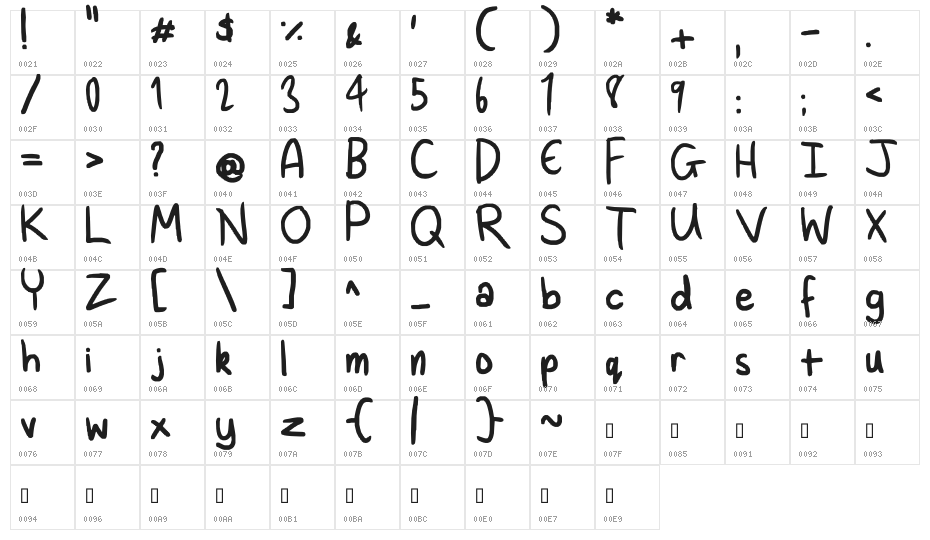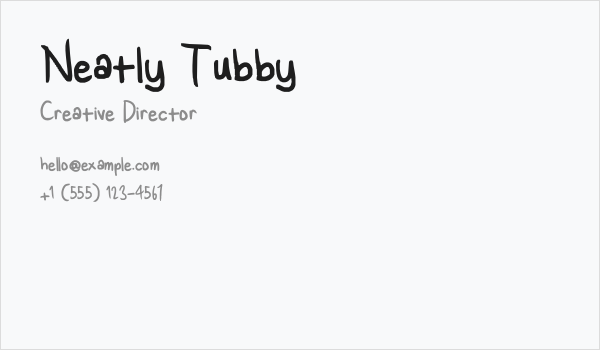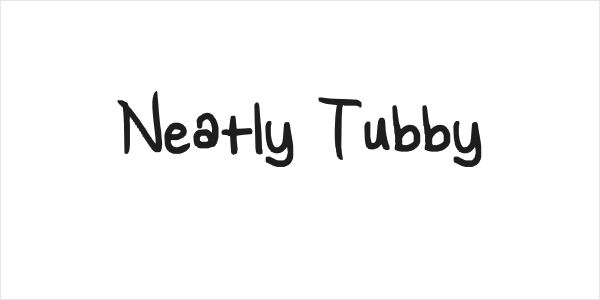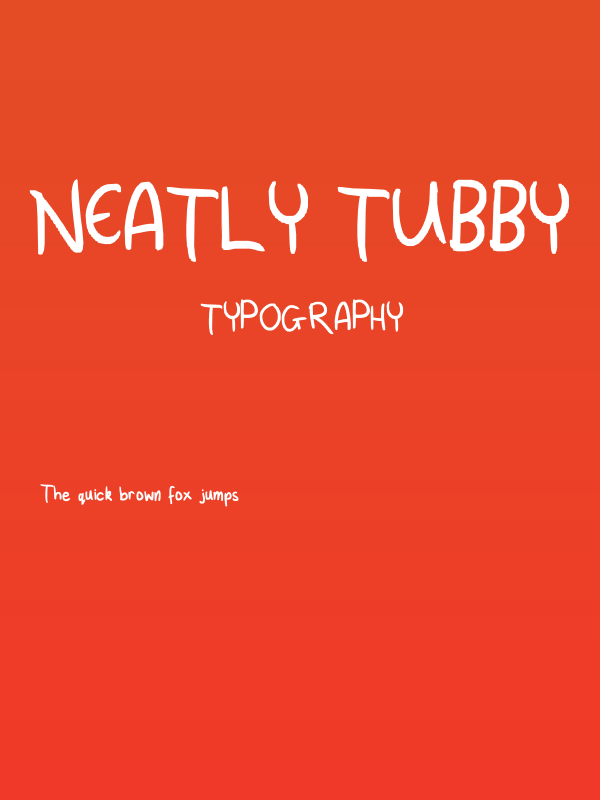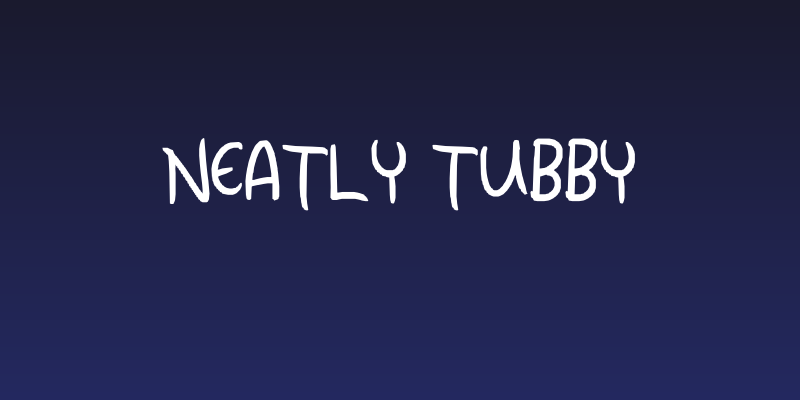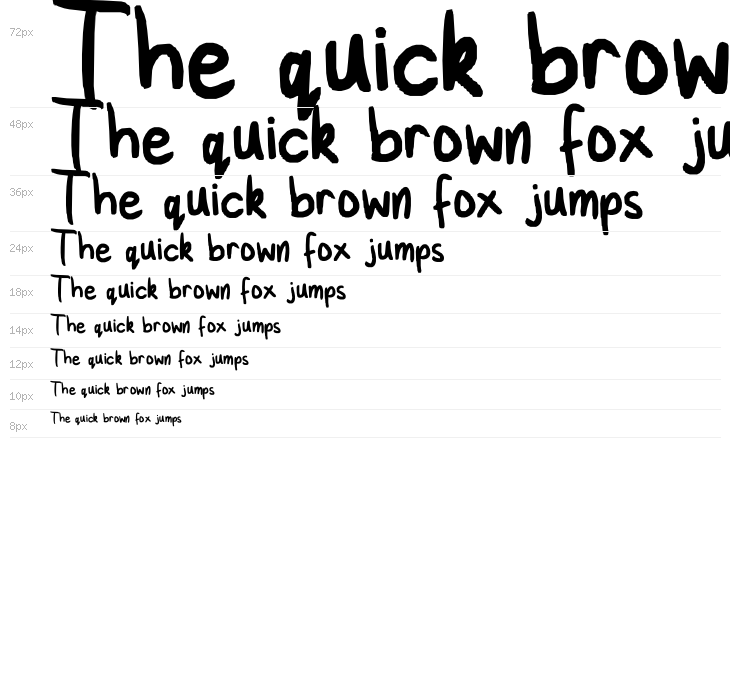
Neatly Tubby Font
Neatly Tubby Description
This font features a playful and casual handwritten style, characterized by its uneven strokes and slightly irregular letterforms. The uppercase and lowercase letters maintain a consistent flow, giving it a friendly and approachable appearance. The numerals and special characters are crafted with the same informal touch, making them blend seamlessly with the alphabet. The overall look is reminiscent of a personal note or a doodle, perfect for projects that require a human touch. The strokes are moderately thick, providing good readability while retaining a whimsical charm.
| Proposed Projects | Ideal for greeting cards, children's books, casual invitations, and playful branding. |